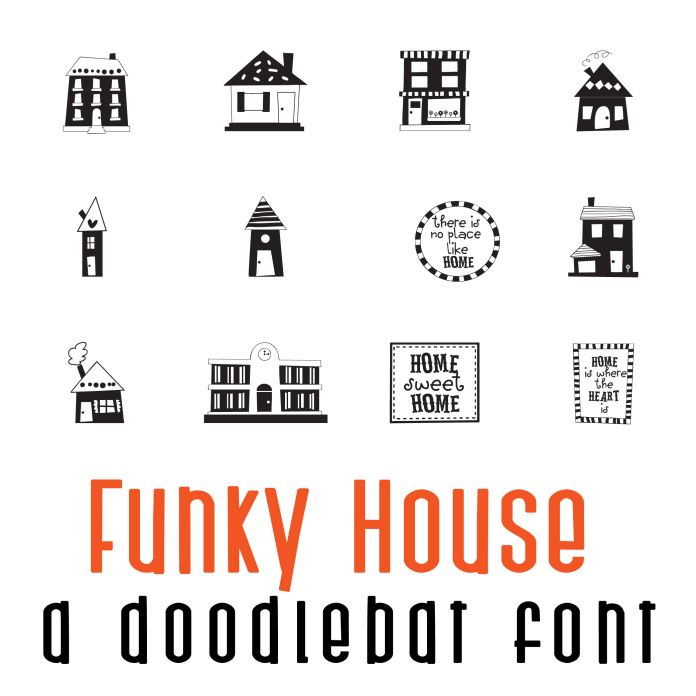
Funky House Doodlebat Font is a playful and whimsical font design featuring 26 whimsical buildings and town images. Perfect for adding a fun and quirky touch to invitations, cards, and other creative projects. Perfect for books, posters, digital designs, parties, classrooms, planner stickers, scrapbook pages and more!